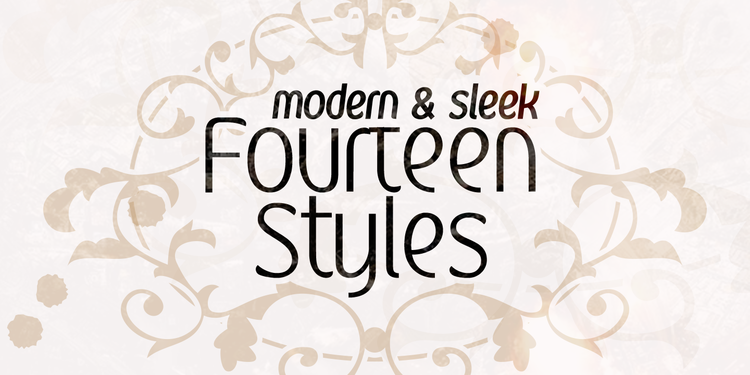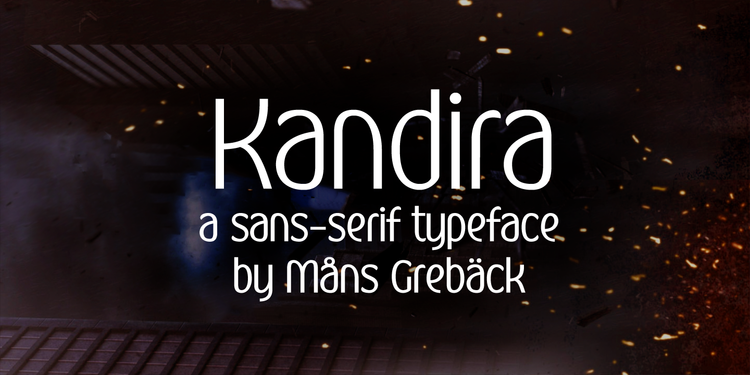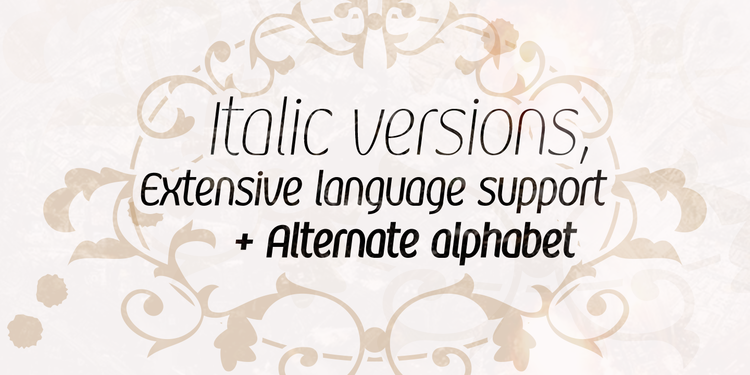
Kandira
Kandira Font Family
Kandira is a sleek sans-serif typeface. It is built with round arches and steady legs. Drawn and created by Måns Grebäck in 2018, this is the perfect font for a modern-age company profile. The typeface family comes in seven weights: Thin, ExtraLight, Light, Regular, Bold, Black and ExtraBlack, and with italics that is a total of 14 styles.